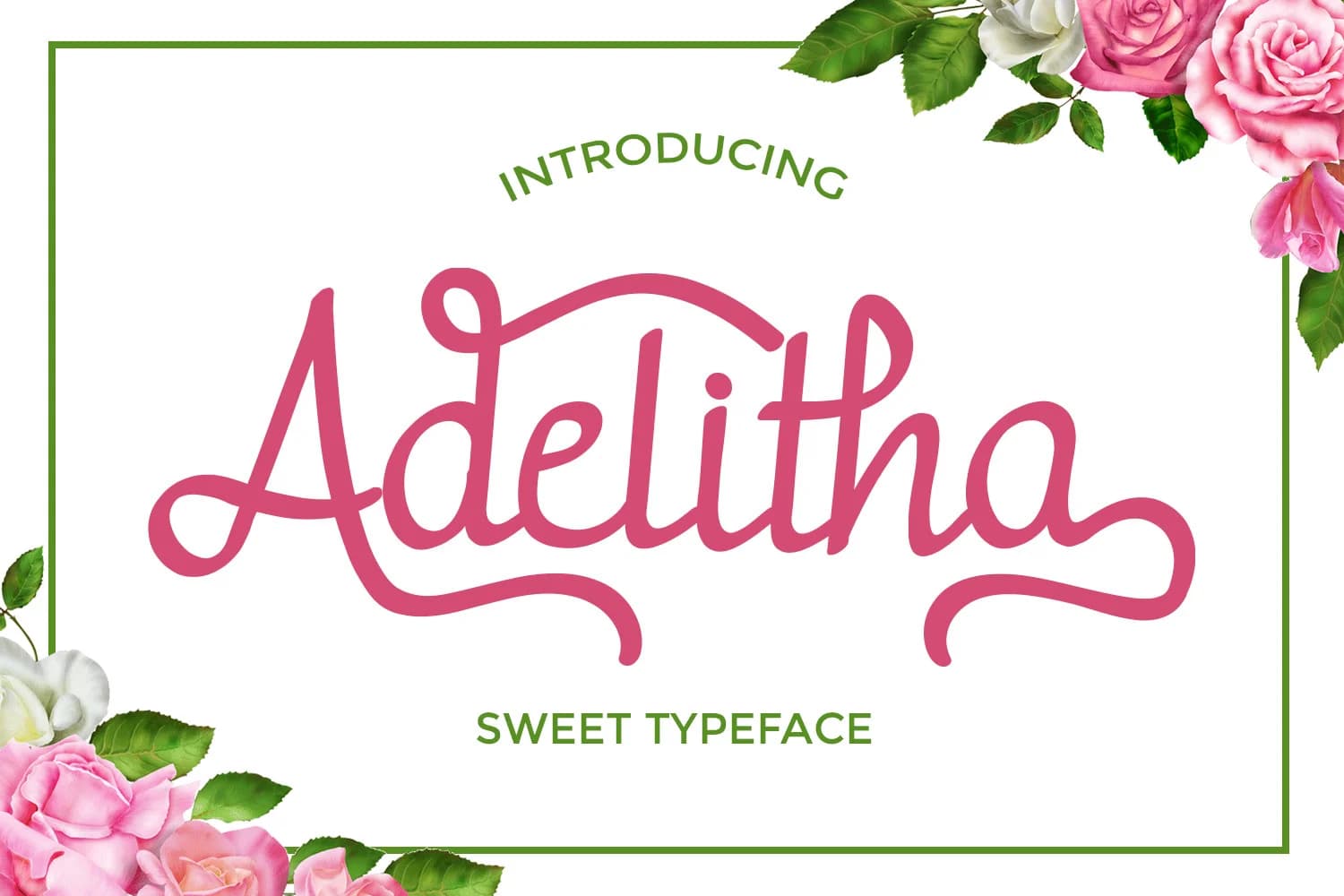
Adelitha by josgandos is a polished handwritten script that gracefully combines organic character with professional refinement. The font's carefully structured letterforms maintain excellent readability even when used for prominent display purposes, making it equally effective in headline compositions and eye-catching design layouts. Its fluid, expressive nature brings distinctive personality to projects that demand authentic typography beyond the ordinary.
This versatile script truly shines in specialized design applications where genuine handwritten warmth matters most. Wedding invitation suites benefit from its elegant flow, while greeting card designs, branded packaging for artisanal products, and small business identity systems all showcase the font's natural expressiveness. Freelance designers developing Etsy product labels, custom stationery collections, and luxury brand aesthetics will particularly appreciate how Adelitha captures attention while maintaining sophistication. The consistent, balanced letter weight ensures legibility never compromises the design, whether rendered at large display sizes or in more compact applications.
Adelitha Font is a script font that shines as a display or heading face. Pair it with a clean sans-serif or serif font for body text β the contrast creates a clear hierarchy while the two styles stay balanced and easy to read.
Adelitha Font